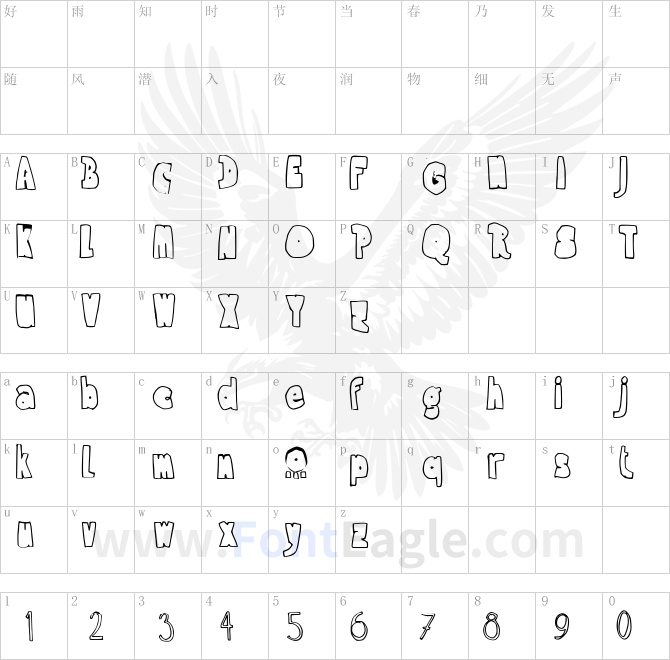
- Font name:Ramon
- Font Subfamily ID:PietBrantjes: Ramon Bold: 2007
- Font Full Name:Ramon Bold
- Postscript:Ramon-Bold
- Font Copyright:Copyright (c) 2007 by Piet Brantjes. All rights reserved.